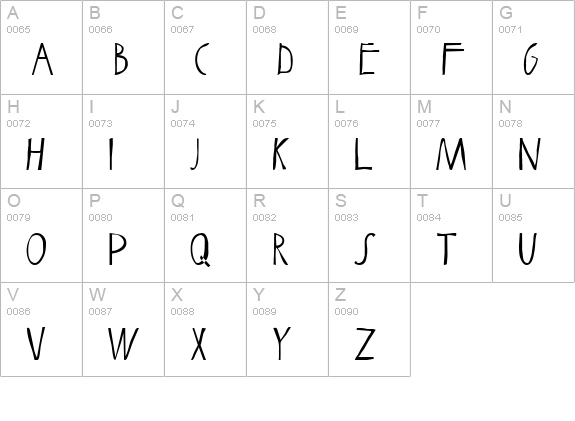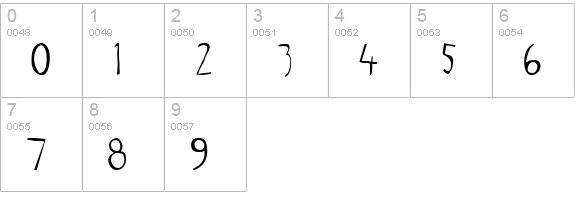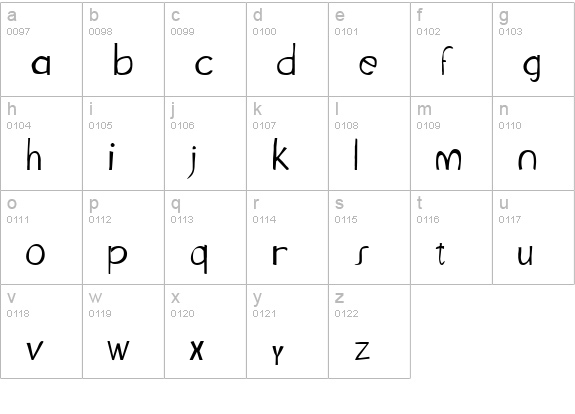
Tigger Font Details
Introducing Tigger Font, a lively and playful typeface that exudes boundless energy and enthusiasm in every letter. This unique font is designed to bring a cheerful and whimsical touch to any project, making it perfect for children's books, posters, invitations, and more. Tigger Font captures the essence of Tigger, the lovable character from the Hundred Acre Wood, known for his bouncy personality and infectious laughter. With its bold and dynamic letterforms, this font beautifully captures Tigger's spirit, ensuring that your designs will be bursting with joy and positivity. Not only does Tigger Font bring a sense of fun and liveliness to your projects, but it also offers the convenience of being freely available to download at FontsMarket.com. Now, you can easily access this delightful typeface and incorporate it into your designs without any hassle. Whether you're creating a birthday card for a child, designing a playful logo, or adding a touch of whimsy to a website, Tigger Font is the perfect choice. Its versatility and charm make it suitable for various design projects, allowing you to infuse your work with a sense of childlike wonder and excitement. So, don't miss out on this fantastic opportunity to bring a touch of Tigger's exuberance into your designs. Download Tigger Font today, available for free at FontsMarket.com, and let your creativity bounce to new heights.